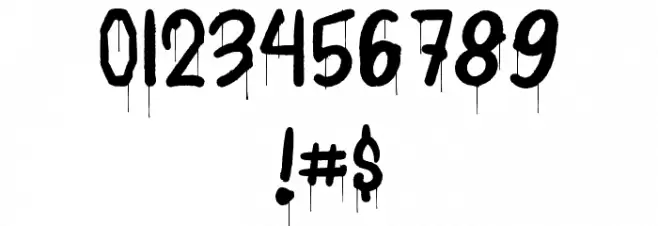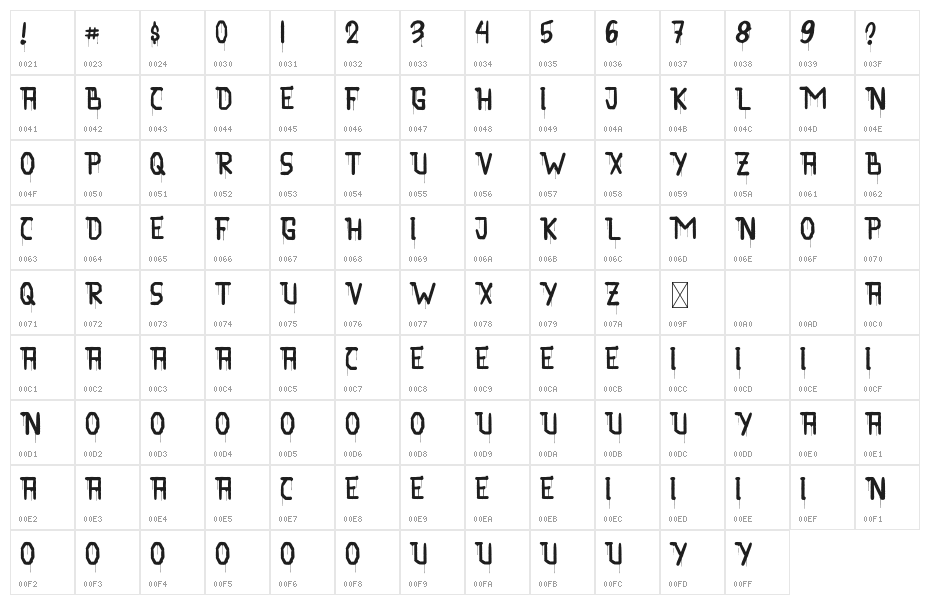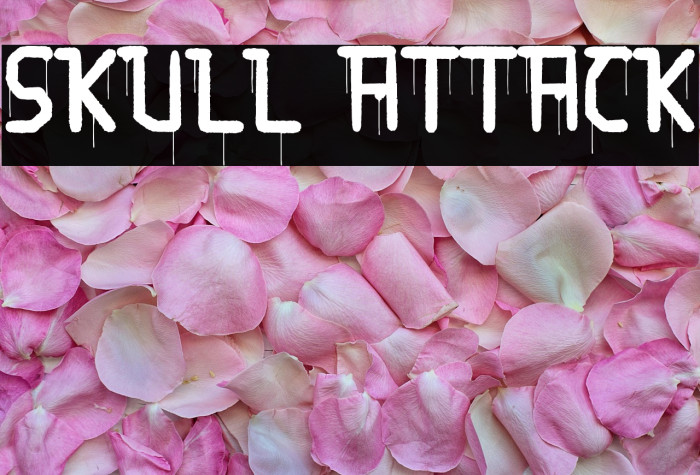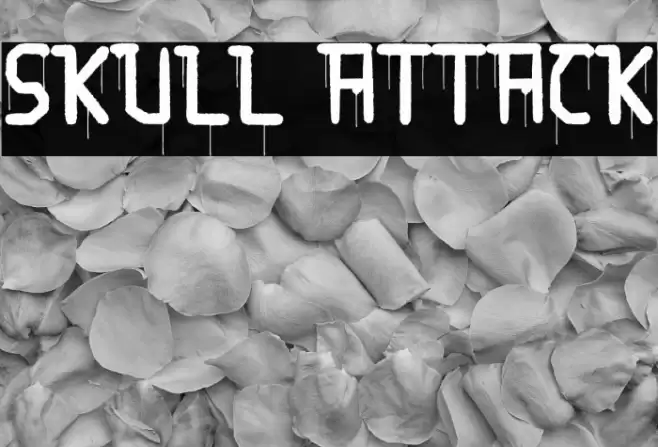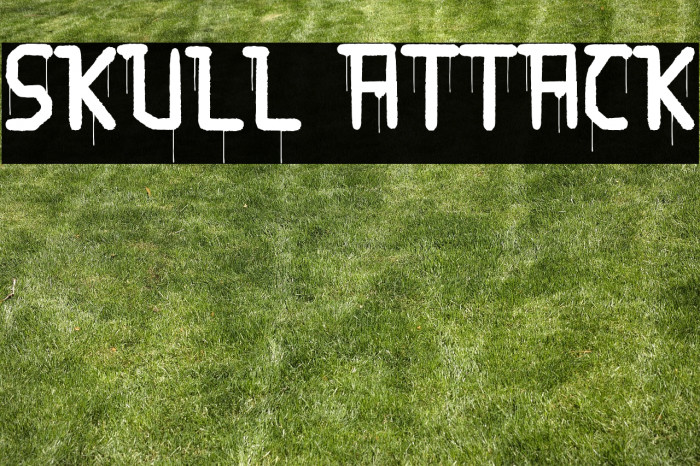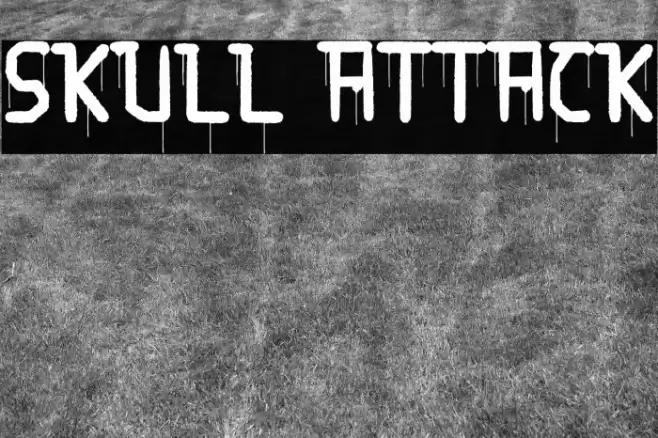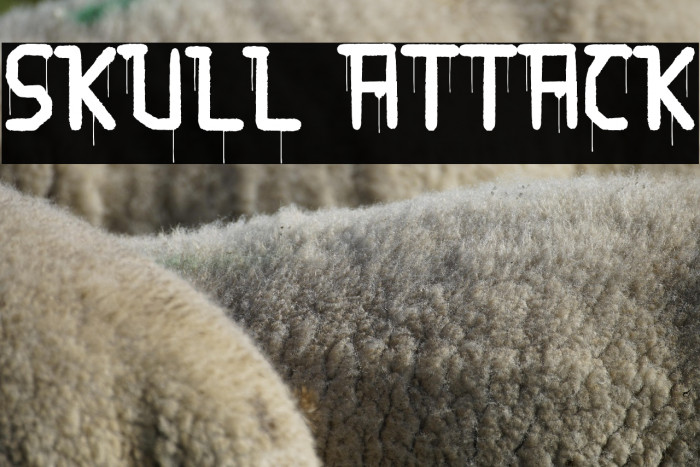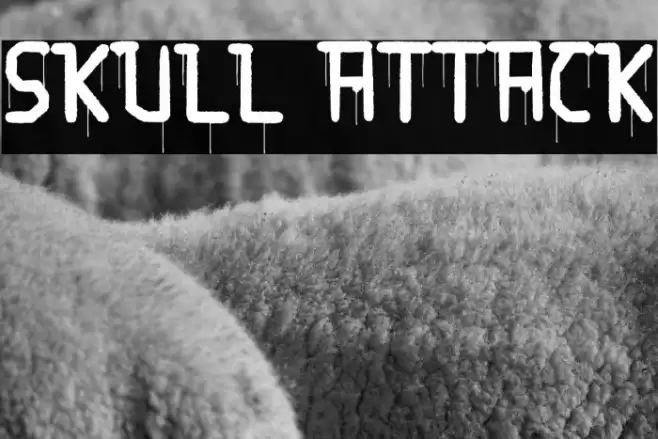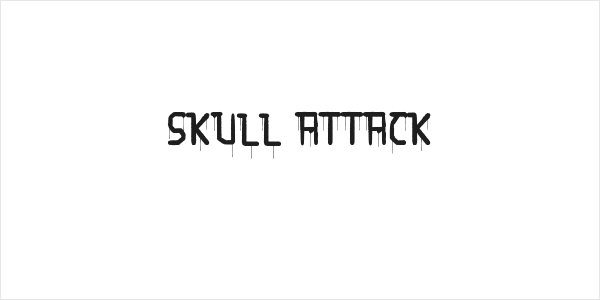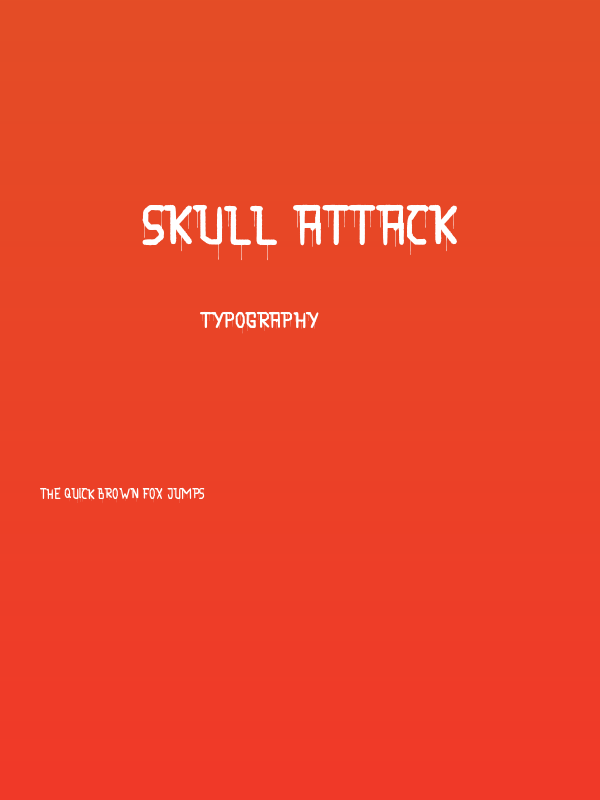
Skull Attack Font
Skull Attack Description
This font features a bold and edgy design with a dripping effect that gives it a grungy, rebellious look. The characters are uppercase and lowercase letters, numbers, and a few special symbols, all maintaining a consistent style that resembles graffiti or street art. The strokes are thick and uneven, creating a sense of movement and energy. The dripping effect adds a unique touch, making it stand out as a decorative and eye-catching choice for projects that require a bold statement.
Overall StyleModern, Grunge
Proposed ProjectsIdeal for music album covers, streetwear branding, event posters, and any project needing a bold, urban aesthetic.